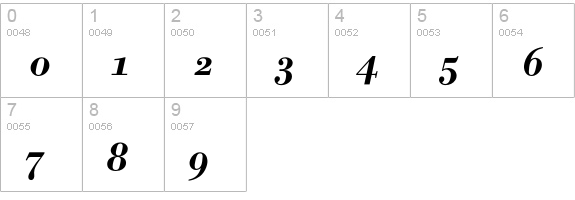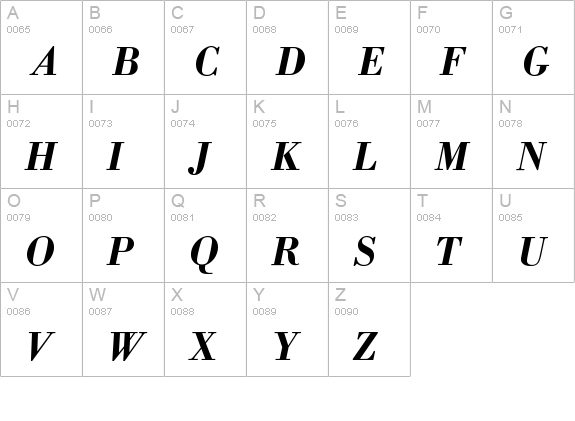
Bodoni Berthold Exp BQ Medium Italic OsF Font Details
Bodoni Berthold Exp BQ Medium Italic OsF is a balanced, medium-weight, italic variant in the Bodoni typeface family \xE2\x80\x94 well suited to sub-headlines, navigation, and balanced editorial work.
Bodoni Berthold Exp BQ Medium Italic OsF font is a modern and elegant typeface that exudes sophistication and style. Its sleek and refined design makes it perfect for use in editorial design, branding, and advertising projects. The medium weight and italic style of this font add a touch of flair and emphasis to any text. What makes Bodoni Berthold Exp BQ Medium Italic OsF font even more appealing is that it is available for free download at FontsMarket.com. This means you can easily access and use this high-quality font in your projects without any cost. Whether you're a designer looking to enhance your creations or a business owner wanting to elevate your brand image, this font is a versatile and valuable addition to your toolkit. Download Bodoni Berthold Exp BQ Medium Italic OsF font today and elevate your designs with its timeless elegance and charm.